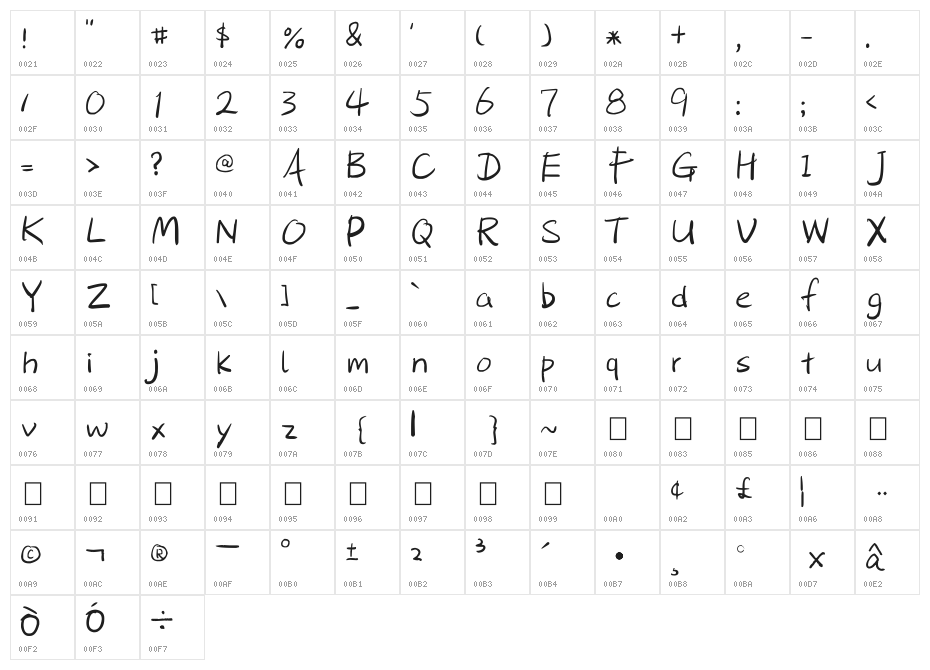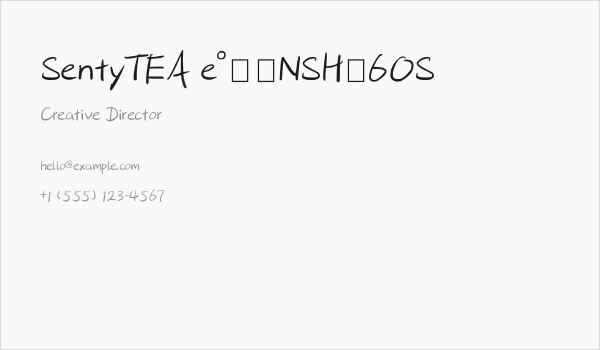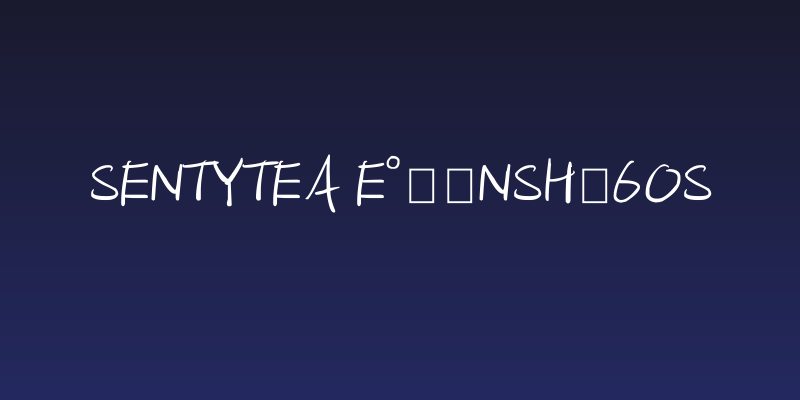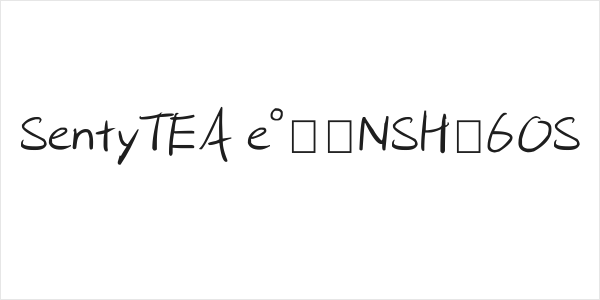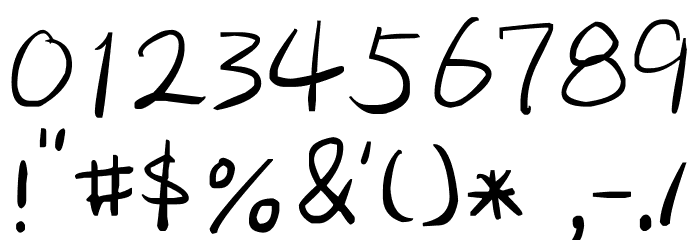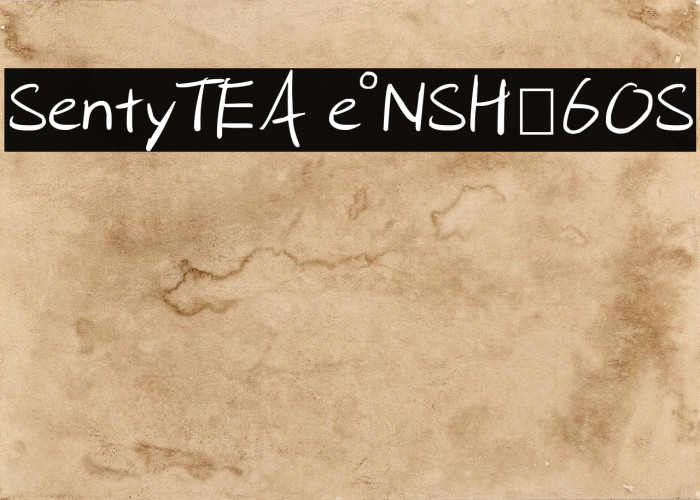
SentyTEA e°„‚NSHƒ6OS Font
SentyTEA e°„‚NSHƒ6OS Description
This font features a playful and casual handwritten style, characterized by its fluid and dynamic strokes. The letters are slightly slanted, giving them a lively and informal appearance. The uppercase and lowercase letters maintain a consistent style, with rounded edges and a smooth flow. Numbers and special characters are designed to match the overall aesthetic, ensuring a cohesive look across all text. The font's organic and friendly feel makes it suitable for projects that require a personal touch.
| Use Case | Logos, Invitations, Informal Text |
| Proposed Projects | Ideal for greeting cards, personal invitations, children's books, and creative branding. |